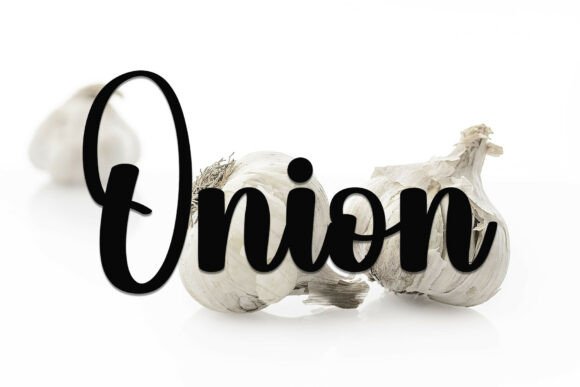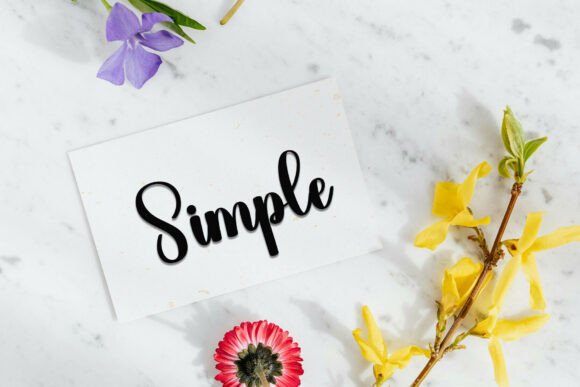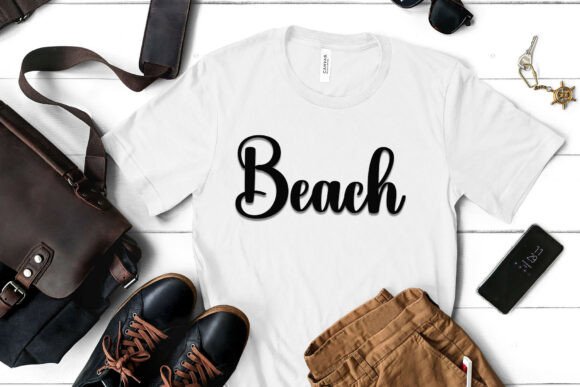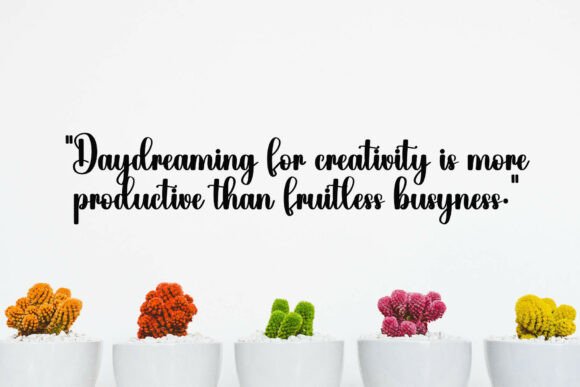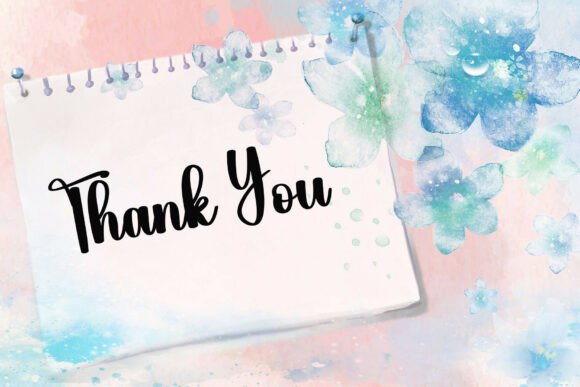
Finger Font: Adding a Simple and Natural Touch to Your Designs
Finger font is a beautiful, simple handwritten font that has gained popularity among designers and crafters. Its versatility and wide range of applications make it an ideal choice for various projects, from greeting cards to headlines. In this article, we’ll explore the features and benefits of Finger font, and how it can add a simple and natural feel to your next project.
What is Finger Font?
Finger font is a type of handwritten font that exudes a sense of simplicity and elegance. Its clean lines, rounded edges, and flowing strokes make it perfect for designs that require a personal touch. This font is designed to mimic the look of handwriting, giving your projects a warm and inviting feel.
Key Features of Finger Font
• Simple and Handwritten: Finger font is a simple, handwritten font that adds a personal touch to your designs.
• Versatile: This font can be used for a wide range of applications, from greeting cards to headlines, and even digital media.
• Natural Feel: Finger font has a natural, effortless look that makes it perfect for designs that require a simple and elegant feel.
• Easy to Read: The clean lines and flowing strokes of Finger font make it easy to read, even at small sizes.
Applications of Finger Font
Finger font is a versatile font that can be used for various applications, including:
• Greeting Cards: Add a personal touch to your greeting cards with Finger font.
• Headlines: Use Finger font to create eye-catching headlines for your blog posts, articles, or social media posts.
• Digital Media: Finger font can be used for digital media, such as website headers, social media graphics, and more.
• Crafting: Finger font is perfect for crafters who want to add a personal touch to their projects, such as scrapbooking, journaling, and card making.
Benefits of Using Finger Font
Using Finger font in your designs offers several benefits, including:
• Unique Look: Finger font adds a unique and personal touch to your designs, setting them apart from others.
• Time-Saving: Finger font saves you time and effort, as you don’t have to spend hours designing a custom font.
Tips for Using Finger Font
Here are some tips for using Finger font in your designs:
• Use it Sparingly: Use Finger font sparingly to add emphasis to your designs.
• Experiment with Sizes: Experiment with different sizes to find the perfect fit for your design.
• Pair it with Other Fonts: Pair Finger font with other fonts to create a unique and interesting look.
• Use it for Headlines: Use Finger font for headlines to add a personal touch and draw attention to your content.
Finger font is a beautiful, simple handwritten font that can add a simple and natural feel to your designs. Its versatility, ease of use, and cost-effectiveness make it an ideal choice for designers and crafters. Whether you’re creating greeting cards, headlines, or digital media, Finger font is a great option to consider. So why not give Finger font a try and see how it can enhance your next project?